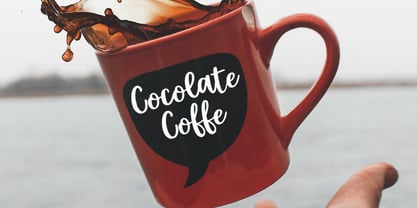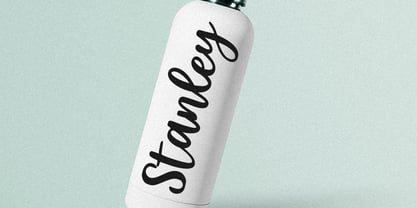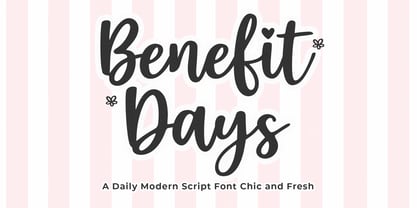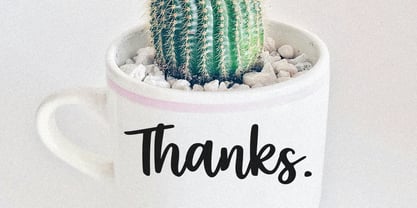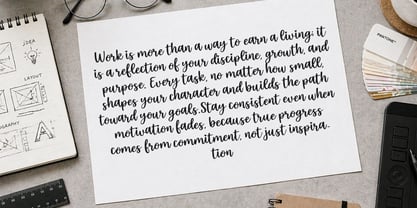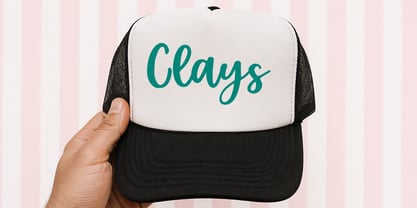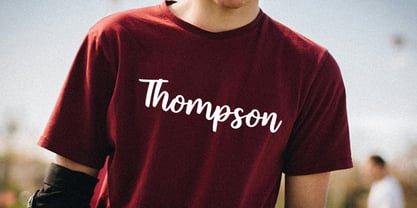
Benefits Days
by Natural Ink
The Benefits Days Font Family was designed by Arif Gunawan and published by Natural Ink. Benefits Days contains 1 styles. More about this family
Exuding a lively and engaging ambiance, the Benefit Days font radiates the playful allure of handcrafted stylistic nuances. Lovingly designed, this font boasts subtle curves and spirited symbols, evoking an approachable, jovial, and accessible mood across creative designs. Every curve of Benefit Days has been carefully shaped to mirror the cozy familiarity of genuine handwriting, striking the perfect harmony between fluidity and blank space, sprinkled with delicate imperfections that breathe it to life. This font flourishes across a wide spectrum of creative applications, from crafting brand identities and individualized invitations, refined logos, engaging packaging, eye-catching social media posts, to designs for children, and beyond. Regardless of your creative project; be it emanating modest charm, a cozy appeal, or subtle emotions, Benefit Days elevates it with a mesmerizing touch that stands out and yet blends in. This hand-drawn style font, with its flowing characters, offers an organized and reader-friendly experience across both digital and print platforms. Ideal for branding, impactful quotes, personality invites, and a whole lot more, Benefit Days goes beyond being just a font. After all, it’s an exhilarating expression of creativity that infuses personality and delight into your designs.
Designers: Arif Gunawan
Foundry: Natural Ink